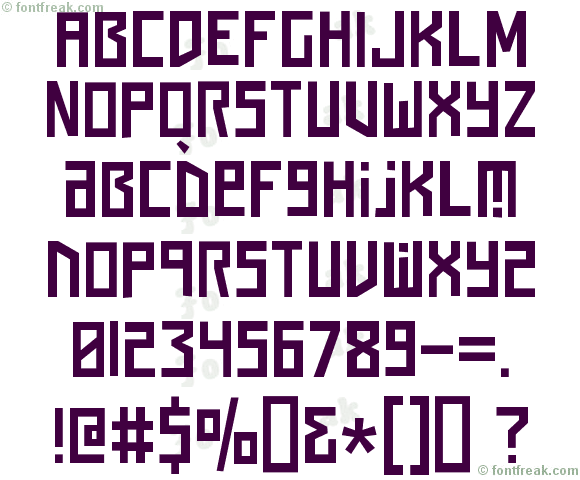
Squaren Daren NC
Squaren Daren NC is a unique display font designed by Jayvee Enaguas, released under a freeware license. This font falls into the decorative category, featuring a bold and modern aesthetic that captures attention with its distinctive geometric shapes. The visual characteristics of Squaren Daren NC include a sturdy stroke weight, minimal contrast, and creative spacing that gives it a contemporary feel. Its block-like letters are enhanced with playful elements, making it an eye-catching choice for various design projects.
This font is particularly well-suited for use cases that require a strong visual impact. It works wonderfully for movie posters, where striking typography can draw viewers in. Additionally, Squaren Daren NC shines in branding materials for small businesses, as its unique style can help create a memorable brand identity. It is also an excellent choice for restaurant menus, giving them a modern twist while remaining easy to read. Graphic designers will appreciate its versatility for creating promotional materials, event flyers, and social media graphics that stand out in a crowded marketplace.
Targeting graphic designers, small business owners, and content creators, Squaren Daren NC offers a refreshing alternative to more conventional fonts. The playful nature of this font allows it to convey a sense of creativity and fun, appealing to a wide audience.
What truly sets Squaren Daren NC apart is its ability to combine functionality with artistic flair. This font captures the essence of contemporary design while remaining highly usable across various formats. For those interested in exploring this unique typeface, the Squaren Daren NC font free download is an opportunity to incorporate a modern touch into your projects.